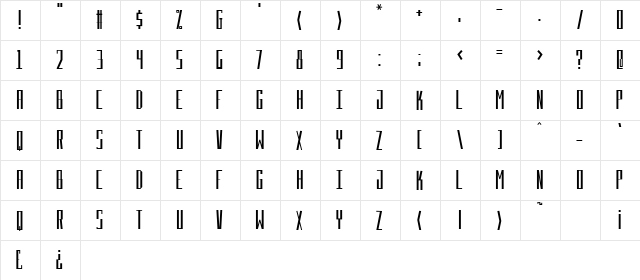
Beckett Regular
Design Context for Beckett Typeface
Beckett offers clean, dependable letterforms without strong stylistic allegiance, making it a practical choice for designers who need flexibility.
Pro Tip: Use Beckett in both headline and body roles to test its range before committing to a single application.